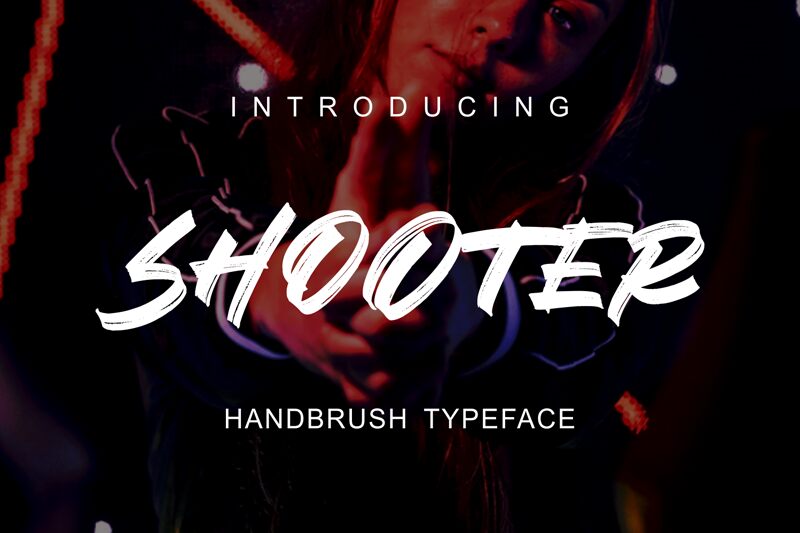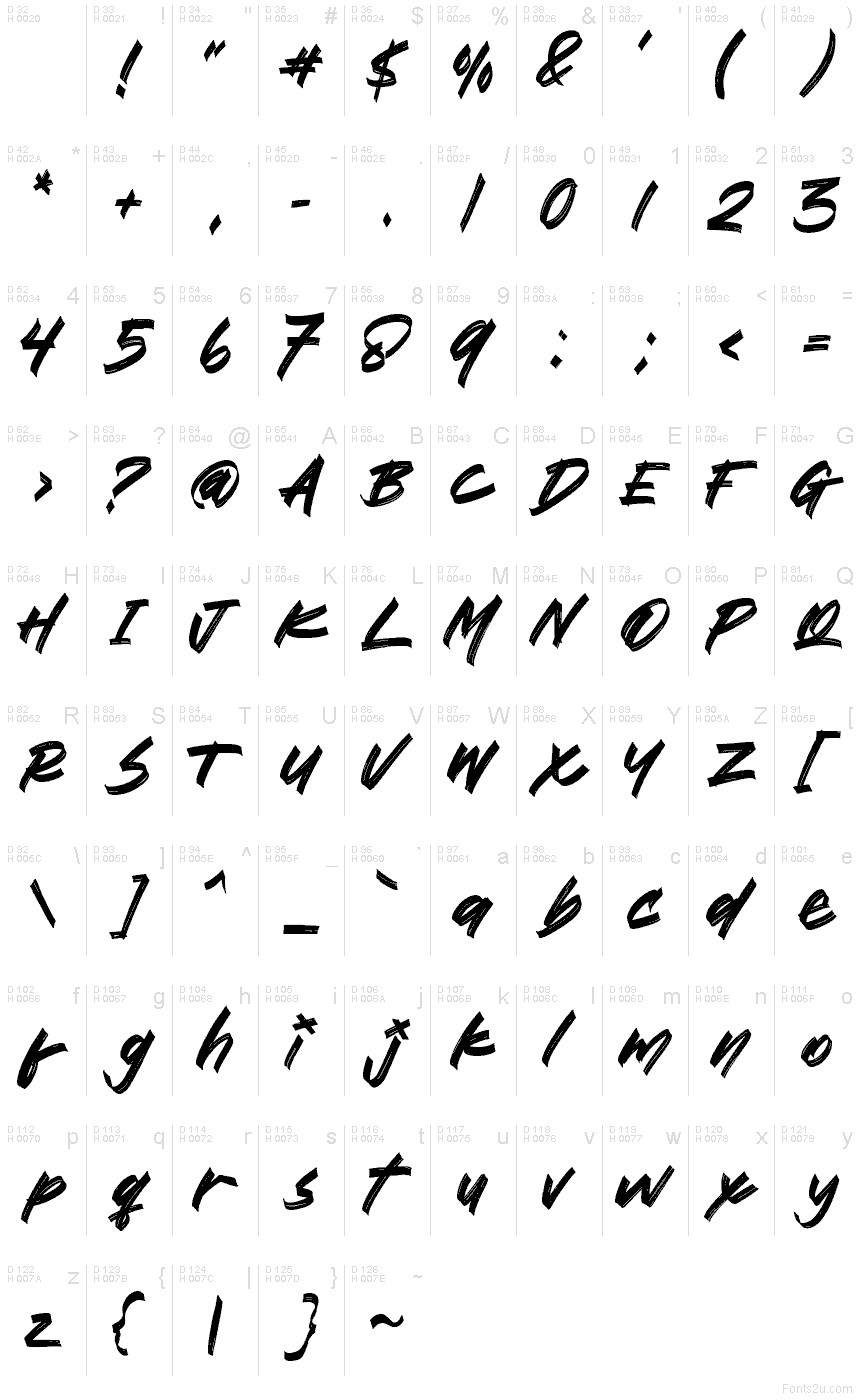
SHOOTER
Shooter font by Zamjump is a free brush typeface with a fast, forward lean and rough, inky texture that screams motion. Thick strokes shred into dry-brush streaks, giving headlines a gritty swipe and instant attitude. Each letter lands like a quick hit—bold, slightly unruly, and built for impact when you need energy on sight.
Using Shooter, you can fuel sports posters, action movie titles, esports logos, YouTube thumbnails, streetwear graphics, event flyers, and album art. The rhythm feels punchy and tight, so it holds up at big sizes and across short phrases. Pair this free font with a clean sans (try a condensed grotesk) to keep supporting text crisp while the brushwork takes the spotlight.